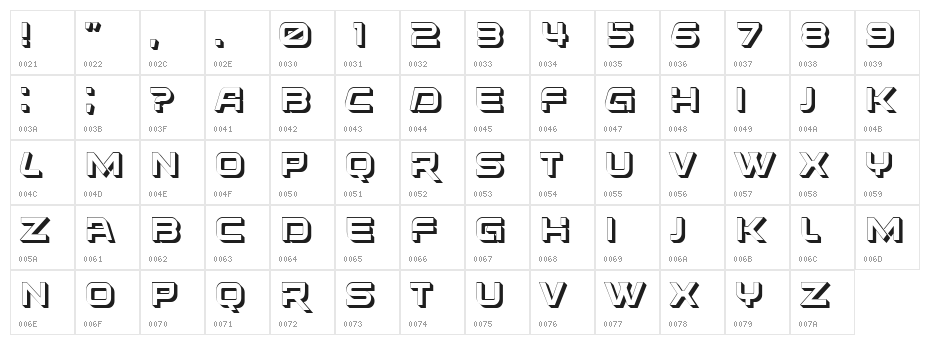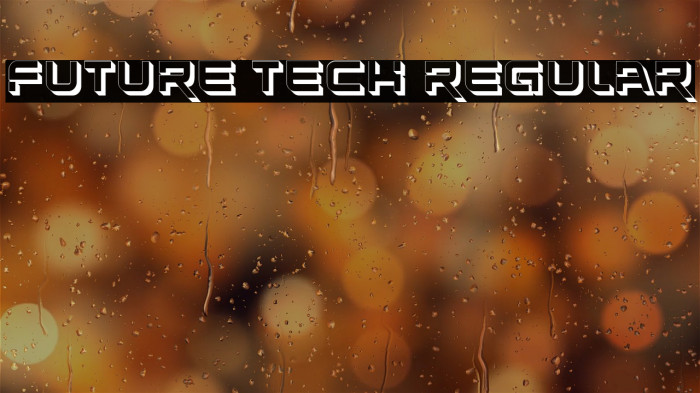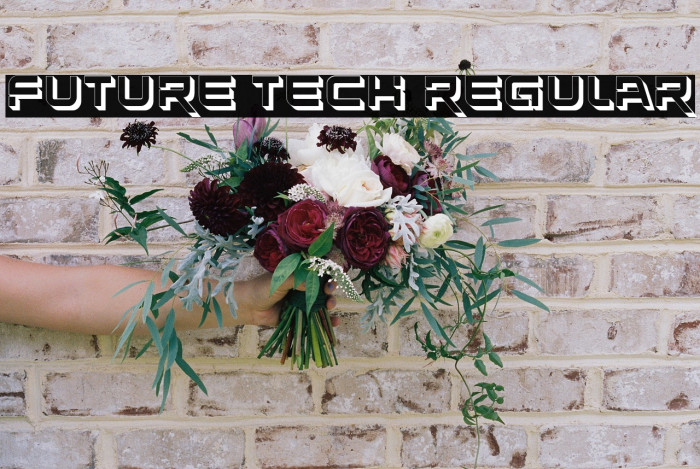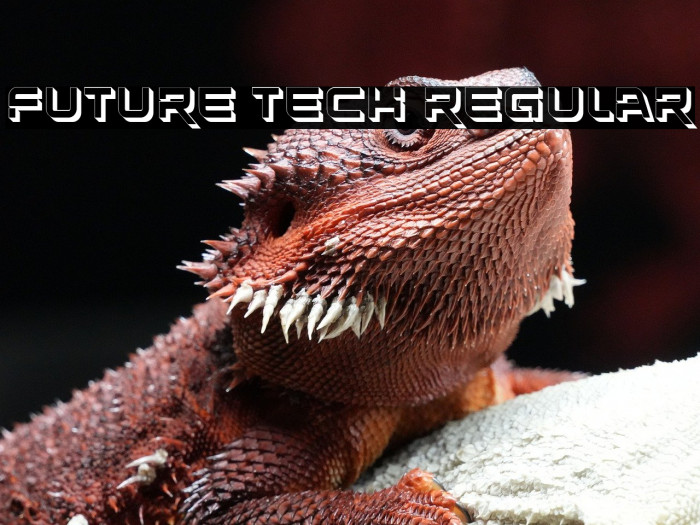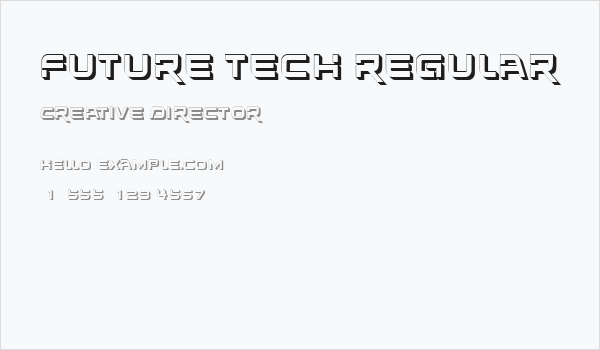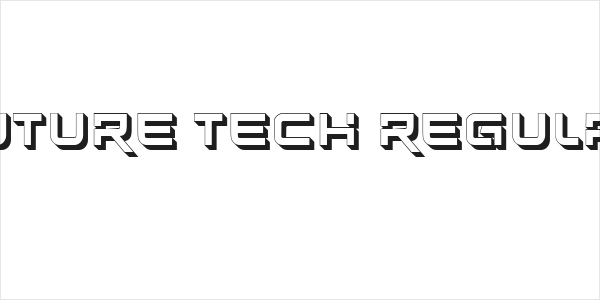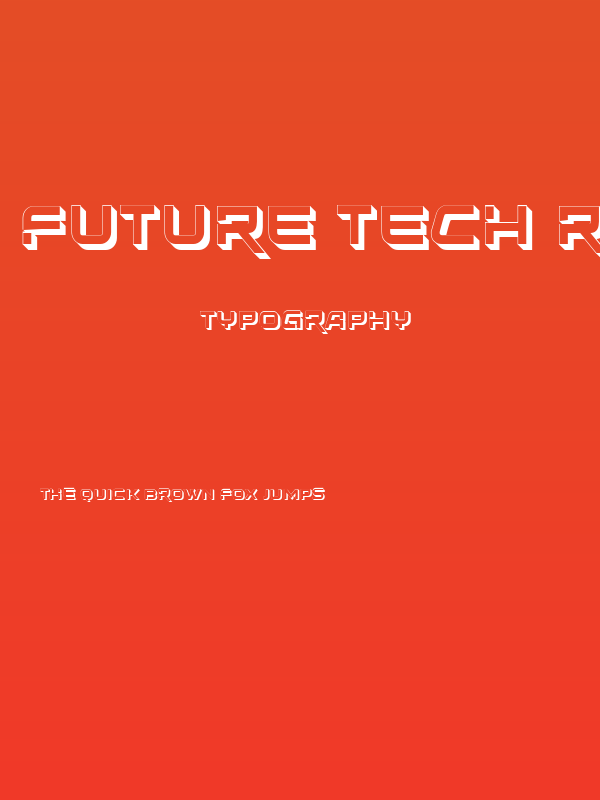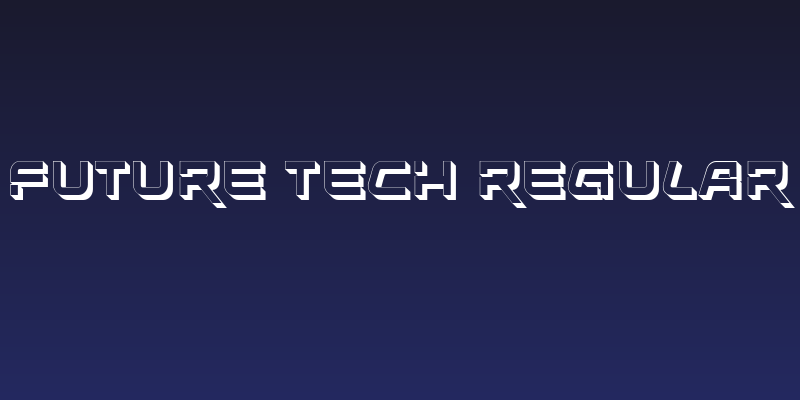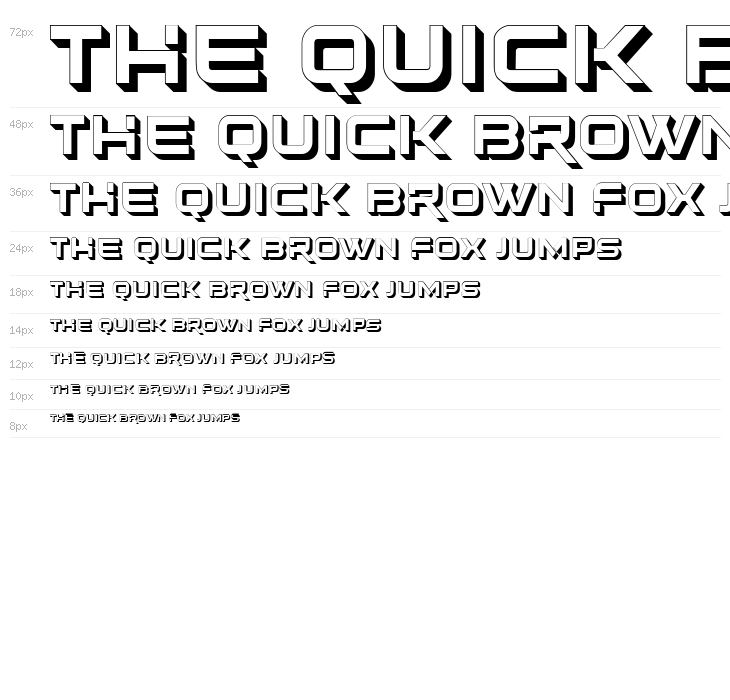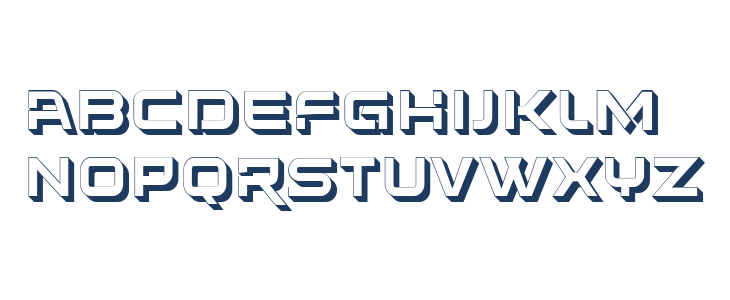
Future Tech Regular Font
Future Tech Regular Description
This font exhibits a futuristic and bold design, characterized by its three-dimensional appearance and sharp, angular edges. The letters are structured with a shadow effect that gives them a sense of depth and dynamism. The geometric shapes and clean lines contribute to a modern and tech-inspired aesthetic, making it stand out in any design. The uppercase letters are consistent in height and width, providing a uniform look across the alphabet. The numerals and special characters maintain the same stylistic features, ensuring cohesion throughout the font set.